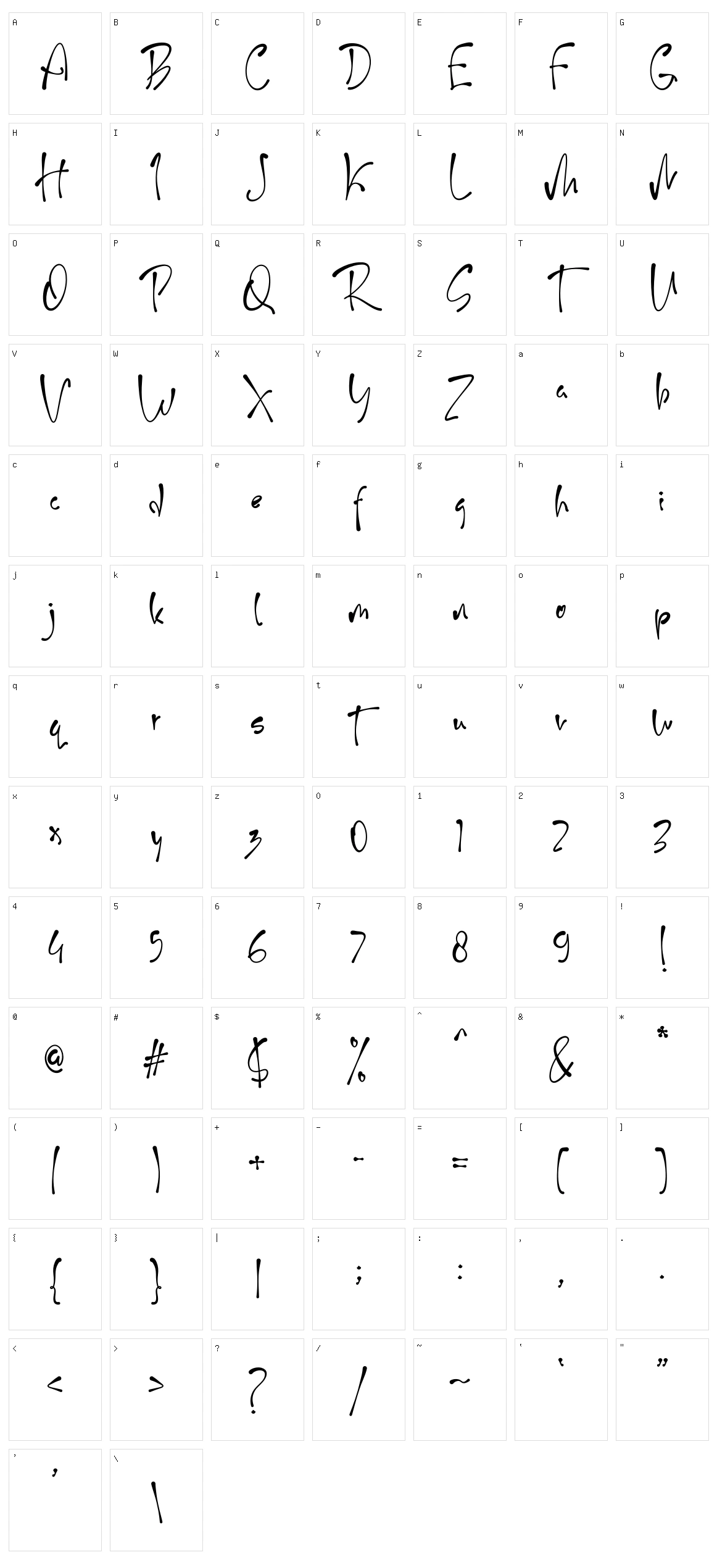
The free font My Ngune is carefully designed by Twin Rizki, showcasing a thoughtful balance of creativity and usability and falls under the Script font style. When you download the ZIP file, it contains only 319.03 KB of font files, making it lightweight and quick to download. Please review the license details below to understand permitted usage and distribution rights. If license information is not available, we recommend using this font for personal projects only or contacting the author directly for commercial usage permissions.